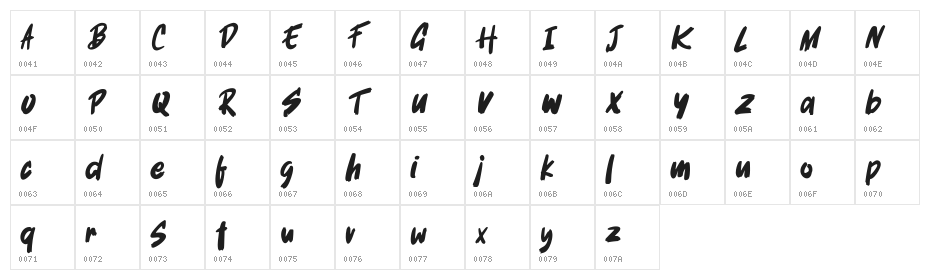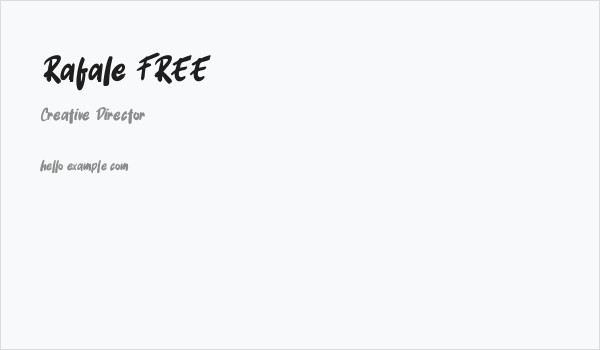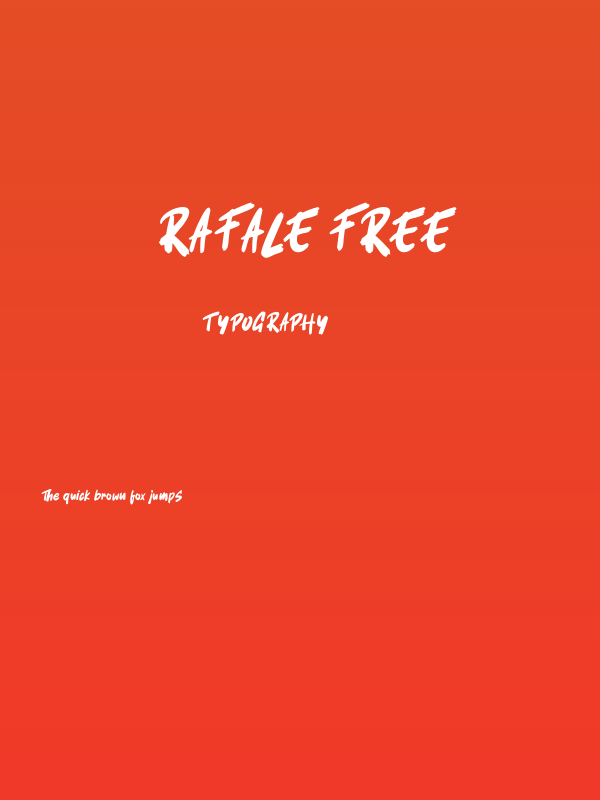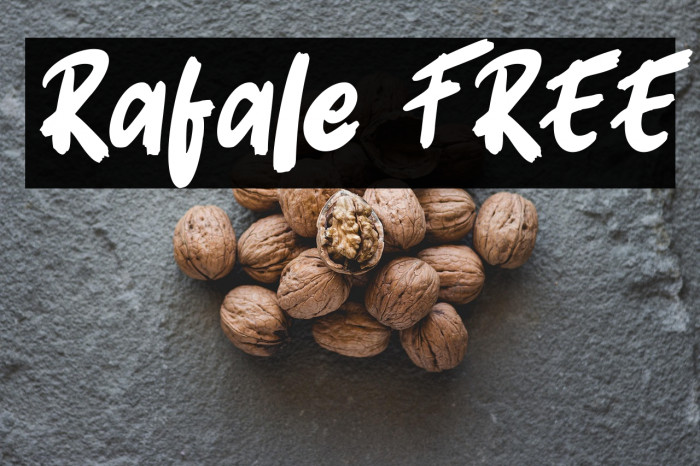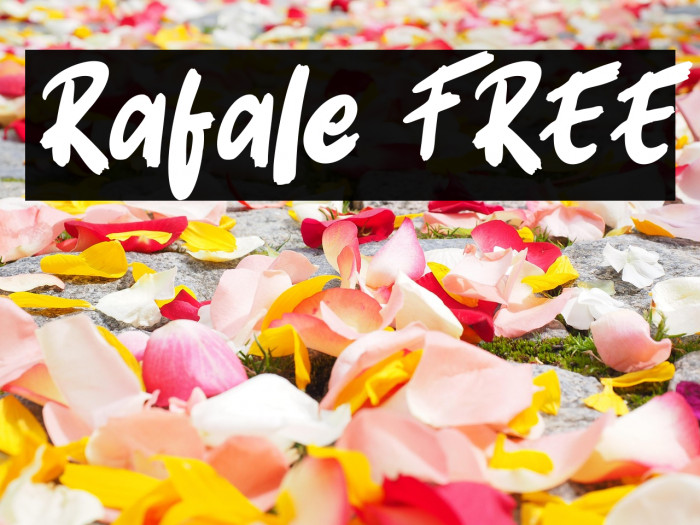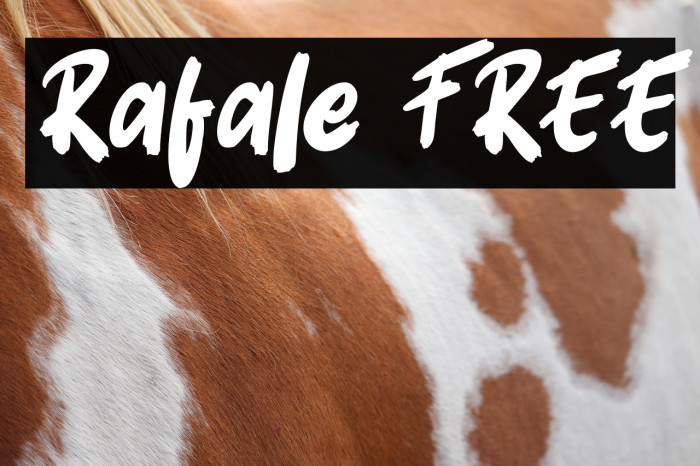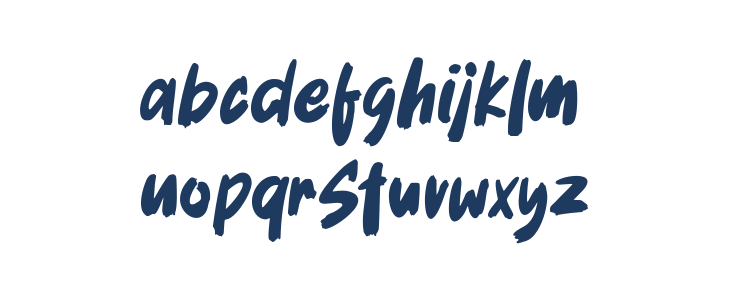
Rafale FREE Font
Rafale FREE Description
This font showcases a bold and dynamic handwritten style, characterized by its thick, brush-like strokes that convey a sense of energy and movement. The letters are slightly slanted, adding a casual and informal touch to the overall appearance. The uppercase and lowercase letters maintain a consistent style, with some variations in the stroke endings that enhance its organic feel. The font's boldness makes it stand out, while the irregularities in the strokes give it a unique, artistic flair. It is well-suited for projects that require a personal, expressive touch.